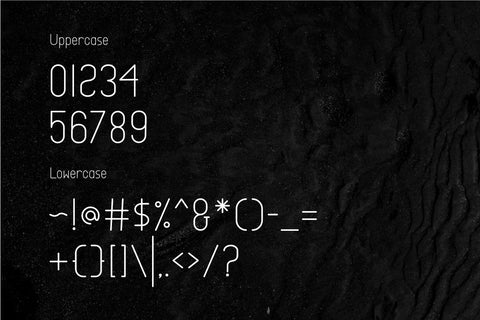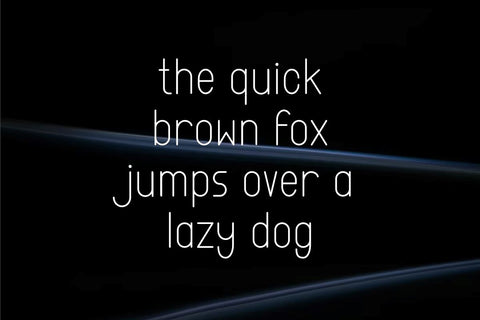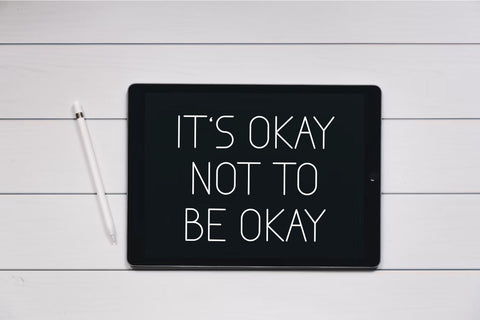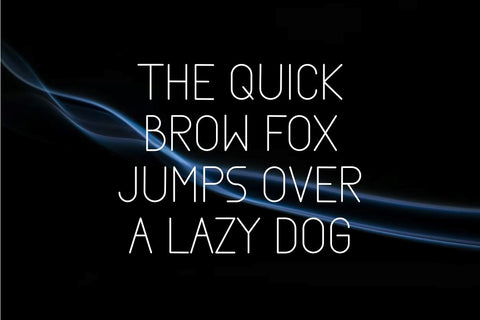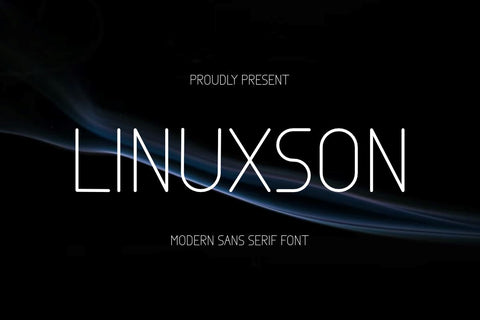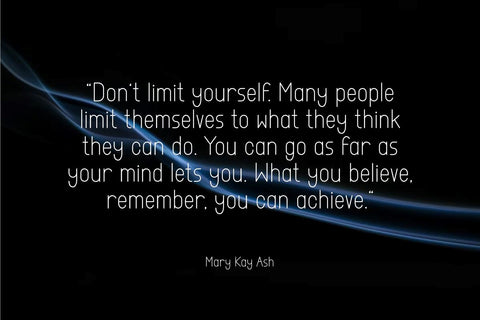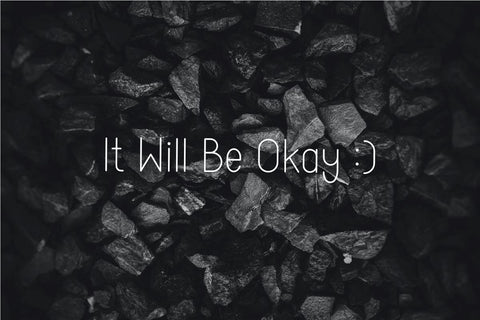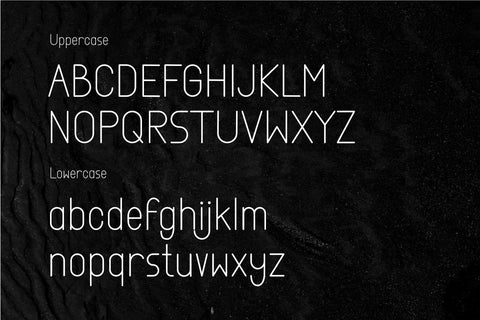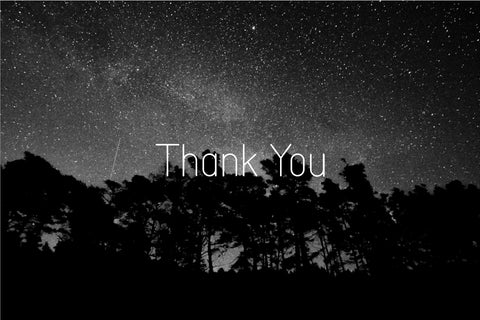
Linuxson - Modern Sans Serif Font
Hi, Introducing Linuxson - Modern Sans Serif Font
A font with a modern style based on a minimalist monoline shape that is touched in a modern and elegant style. This font is perfect for a variety of creative needs such as printing, books, titles, headlines, photography, embellishments, branding, logos, and more.